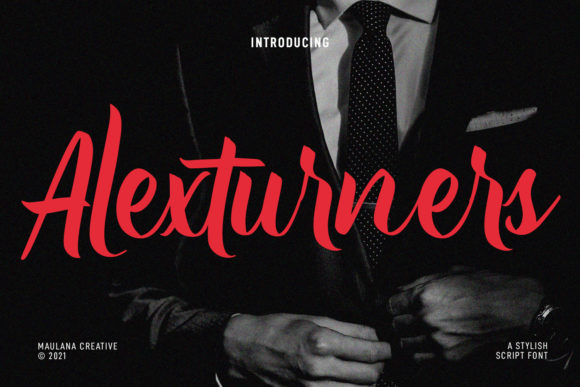
The Alexturners Script Font: A Charming and Elegant Addition to Your Designs
I’ll never forget the time I was working on a wedding invitation project, and my client asked for a font that would make their special day feel truly unique and personal. I scoured the internet, tried out countless fonts, but nothing seemed quite right. That was until I stumbled upon Alexturners Script. This beautiful font has a way of making every design feel charming and elegant, and I’m excited to share my experience with you.
A Honest Review: The Good and the Not-So-Good
What I Love About Alexturners Script
- ✨ Elegant and refined, perfect for high-end designs
- 💕 Beautifully crafted, with a clear handwritten feel
- 🎨 Versatile, suitable for a wide range of design projects
While Alexturners Script is an amazing font, it’s not without its quirks. For example, ⚠️ some users may find that the font can be a bit finicky when it comes to kerning, and 🤔 it may not be the best choice for very long blocks of text.
The Story Behind Alexturners Script
Alexturners Script was designed with the intention of creating a font that would bring a touch of elegance and sophistication to any design. The designer, Alex Turner, drew inspiration from classic script fonts, while also adding a modern twist to make the font feel fresh and unique.
Q: What type of designs is Alexturners Script best suited for?
A: Alexturners Script is perfect for designs that require a touch of elegance and sophistication, such as wedding invitations, thank you cards, quotes, greeting cards, logos, and business cards.
Q: Is Alexturners Script suitable for long blocks of text?
A: While Alexturners Script is a beautiful font, it may not be the best choice for very long blocks of text. It’s best suited for shorter pieces of text, such as headings, titles, and quotes.